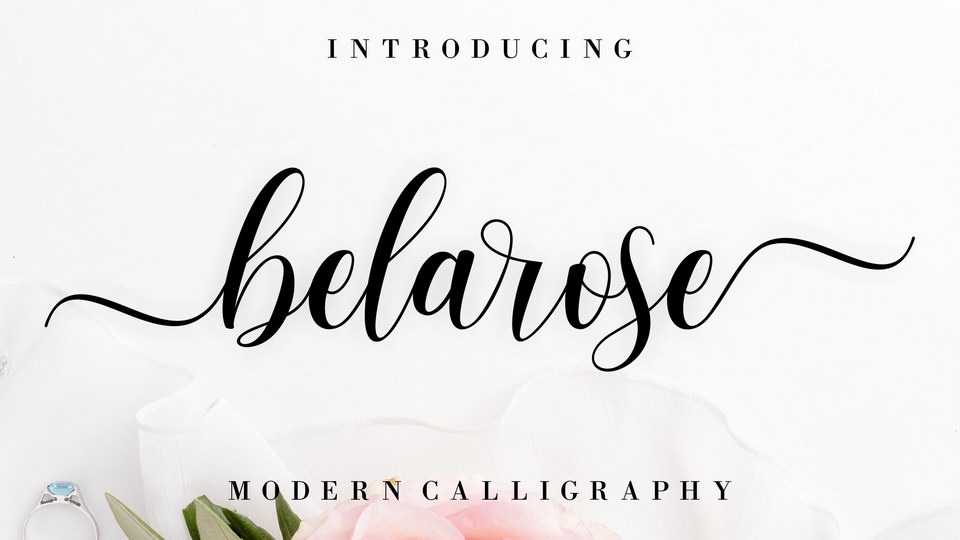
Download Belarose font, a fun and charming typeface with gorgeous swashes. Belarose evokes a look and feel of traditional calligraphy, elevating any craft project in an instant.
Designer: MJB Letters